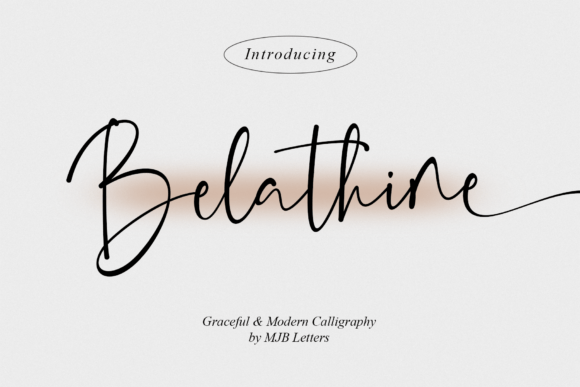
Introduction to Belathine Font
Belathine is a stunning calligraphy font that embodies elegance, modernity, and sophistication.
Designed with smooth strokes and delicate curves, this font brings a graceful and natural handwritten feel, making it perfect for various creative projects .
Belathine Font offers exceptional quality and versatility, making it a valuable addition to your design toolkit. Whether you’re creating for personal projects or commercial use, Belathine Font delivers professional results.